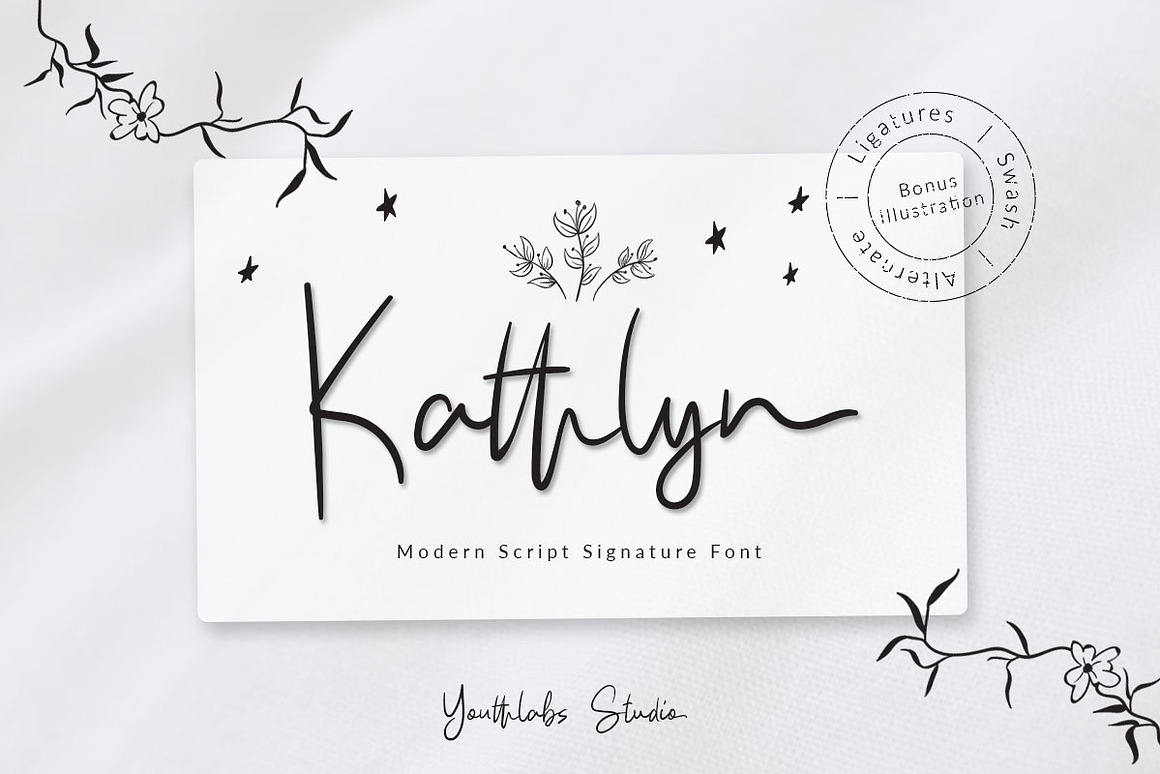
Kathlyn Signature Font
The Kathlyn Signature Font excels in elegant design applications including personal branding, boutique logos, feminine business identities, wedding stationery, luxury beauty brands, handwritten correspondence, creative portfolios, greeting cards, social media graphics, and sophisticated packaging designs. Its graceful script style makes it perfect for projects requiring refined elegance that communicates femininity and establishes intimate connection with audiences seeking beautiful, personalized design elements with timeless appeal.
What makes the Kathlyn Signature Font truly exciting is its masterful combination of delicate femininity with confident signature presence. The font features flowing, interconnected letterforms with gentle curves and elegant flourishes that create a distinctly graceful appearance. Each character displays exceptional craftsmanship with smooth transitions, refined proportions, and sophisticated details that give text a beautiful, hand-lettered quality. The font's feminine charm and elegant rhythm create an atmosphere of sophistication while maintaining approachable warmth and personal authenticity.
The Kathlyn Signature Font family typically includes regular weight with extensive character coverage, featuring uppercase and lowercase letters, numerals, punctuation marks, and international characters. The typeface often incorporates stylistic alternates, contextual ligatures, and decorative swashes that enhance its signature elegance. These additional glyphs provide designers with creative options to customize text appearance and achieve more natural-looking feminine handwriting that reflects the font's graceful and sophisticated character.
This beautiful signature font captivates audiences through its remarkable ability to convey both elegance and personality in perfect harmony. Unlike rigid digital fonts, Kathlyn Signature Font maintains the organic flow and personal touch of genuine handwriting while ensuring professional results across various applications. The font's feminine character makes it ideal for beauty brands, wedding professionals, and creative businesses where elegance and personal connection are essential for building trust and emotional engagement with target audiences.